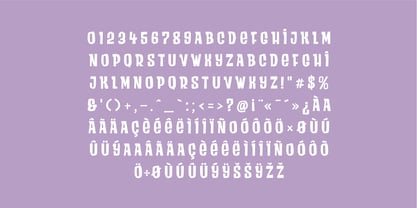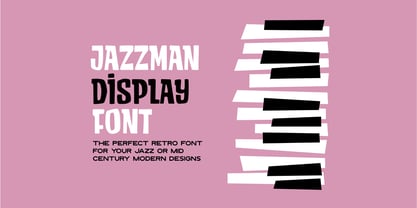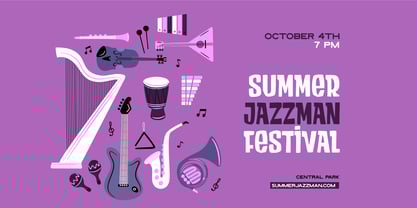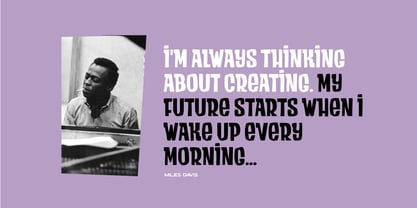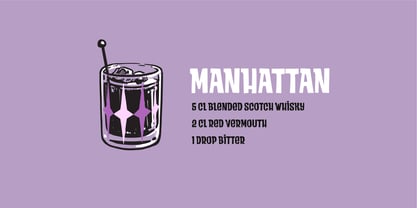
Jazzman
by Francis Chouquet
The Jazzman Font Family was designed by Francis Chouquet and published by Francis Chouquet. Jazzman contains 1 styles. More about this family
I am a big fan of Jazz and of Mid Modern Century design and I already created a few fonts about that style, but this time I wanted to create something a bit more functional that could many uses in a vintage way. So here is Jazzman. Inspiration comes from old 50/60s lettering, mostly from the US, with a Hand Drawn style. This is something important for me: you can see this is hand made. It is not perfect, it is human, and this is my thing.
Francis Chouquet designs display fonts which feels like lettering or illustration. His love for mid modern century design, cartoons or anime movies made him go in a more fun and unique inspiration. His fonts are black or color fonts and can be used for book covers, magazines or company logotypes for example. Which one you use really shows his style and love for letters.